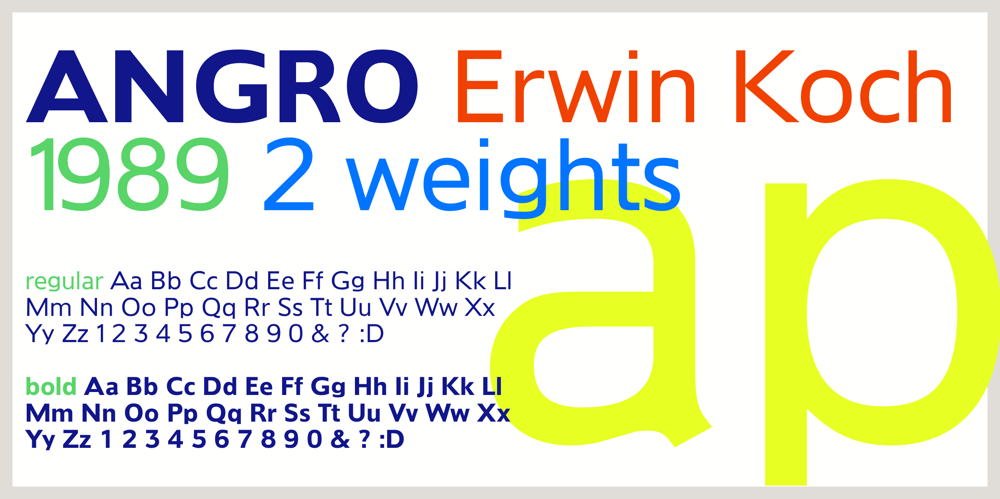
Angro Font Family was designed by Erwin Koch and published by Linotype. Angro contains 2 styles and family package options. The sans serif Angro was designed in the weights light and bold by Erwin Koch. The figures are based on the form of a rectangle which along with the high xheight and short ascenders and descenders gives the forms a static character. Lines of text in Angro are very compact and close set. Due to the reserved ascenders and descenders Angro can be set with very close line spacing.